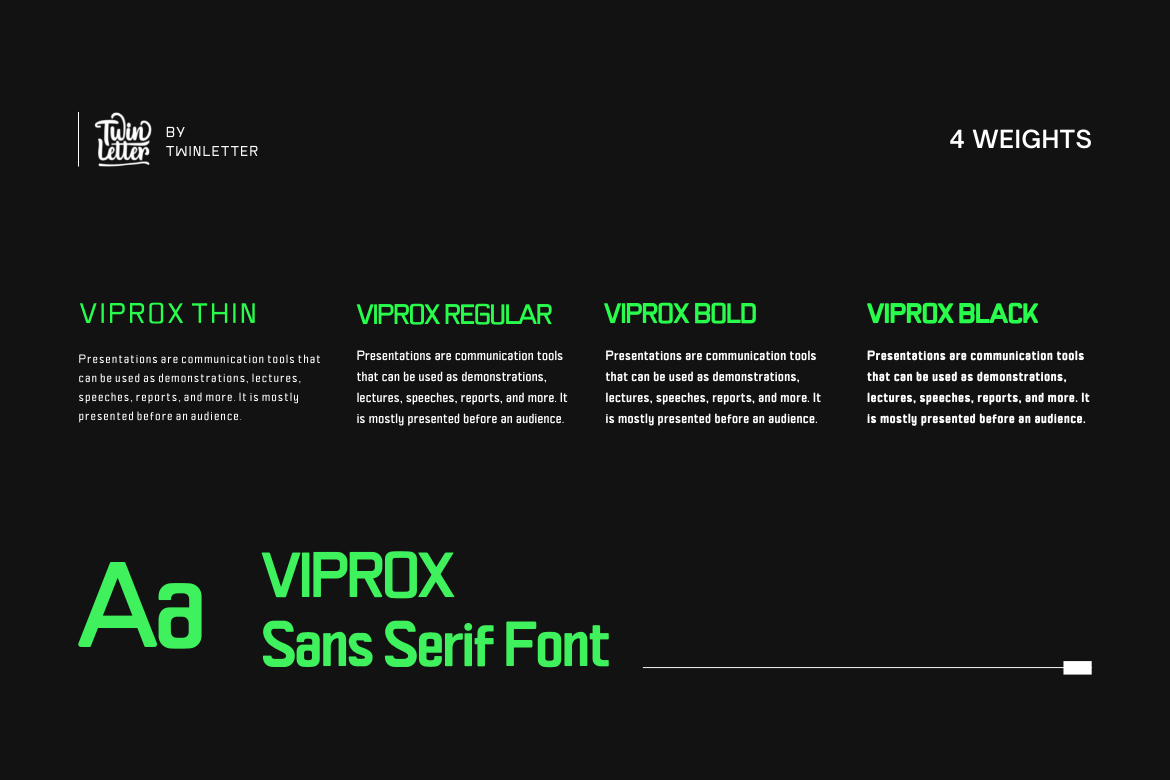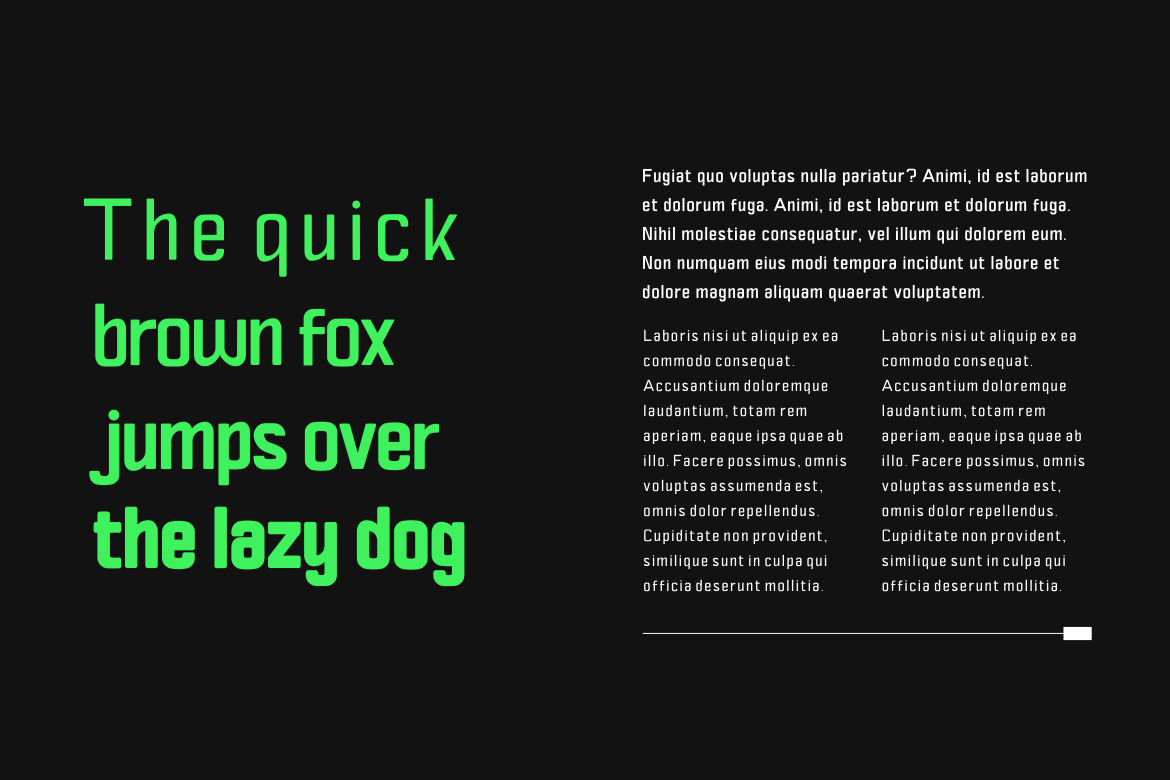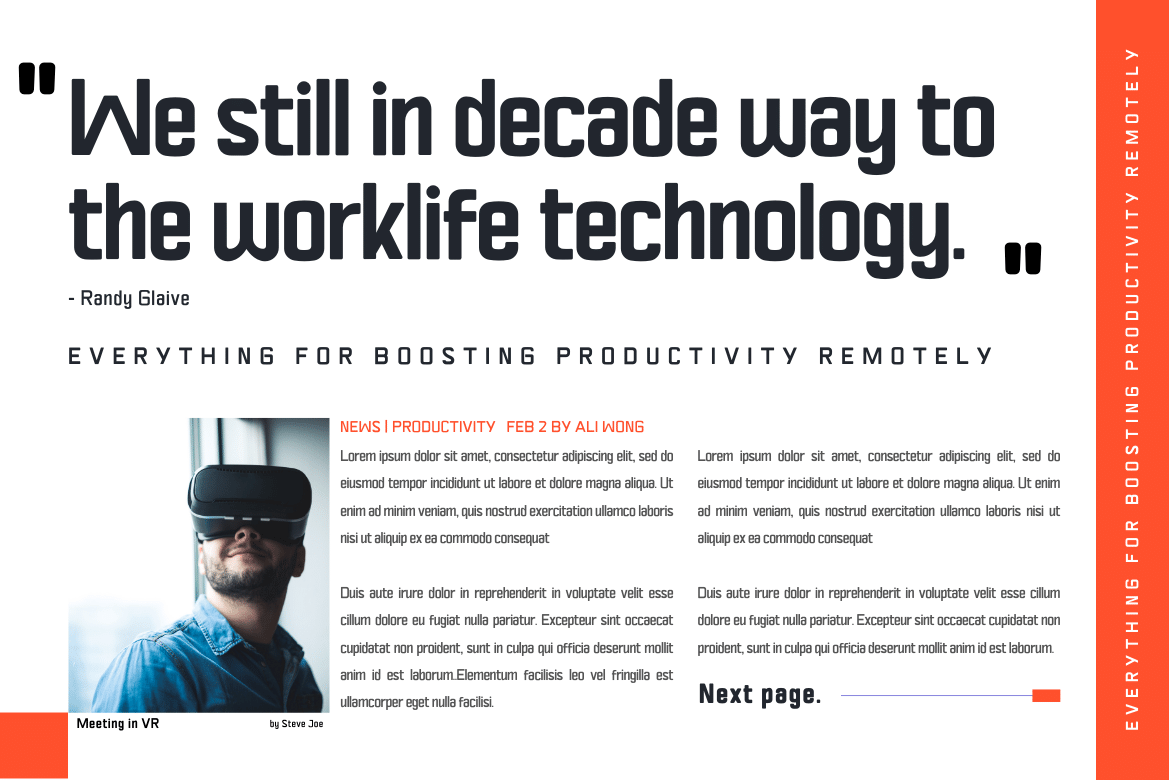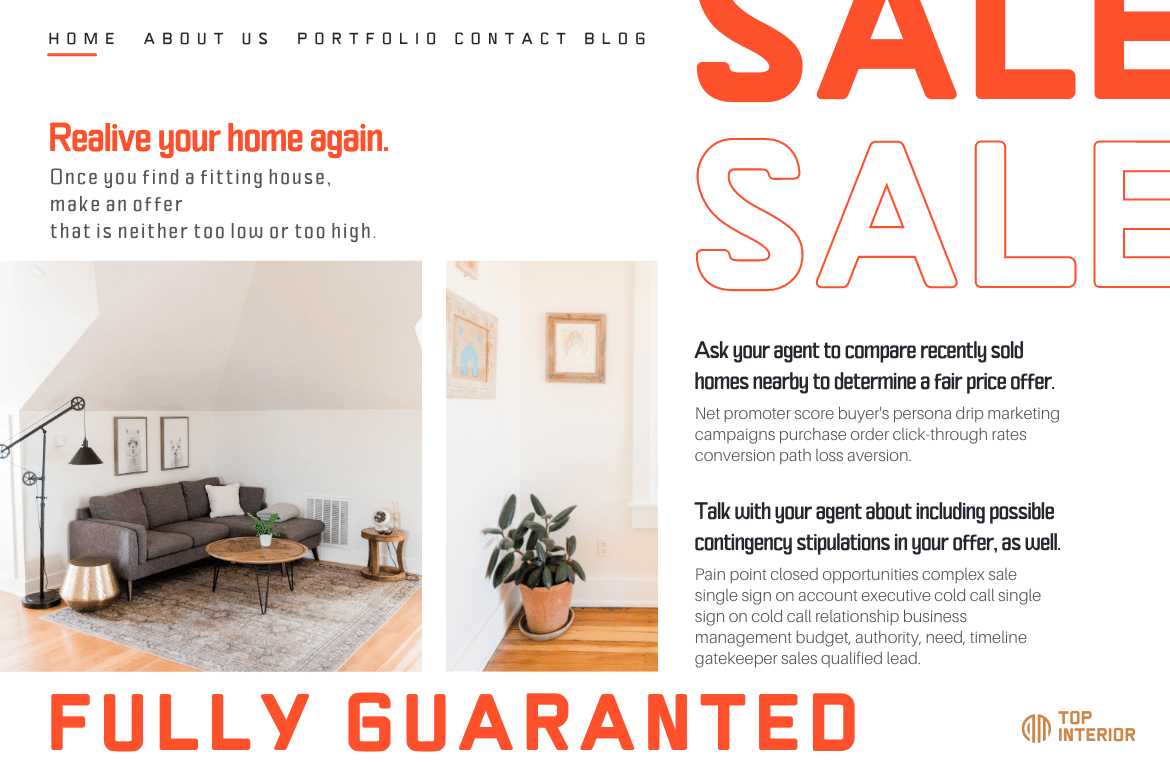
Viprox Font
Viprox Sans Serif Font
It’s a strong and elegant display typeface, created to maximize the use of horizontal space. Crafted from hand-drawn sketches and perfected in digital, Viprox consists of thin, regular, bold, and stunning black. Viprox makes a strong impression in print, headlines, video, and social media – whether paired with a contrasting typeface or on its own. Use this font to get an amazingly stunning project look.
of course, your various design projects will be perfect and extraordinary if you use this font because this font is equipped with a font family, both for titles and subtitles and sentence text, start using our fonts for your extraordinary projects.